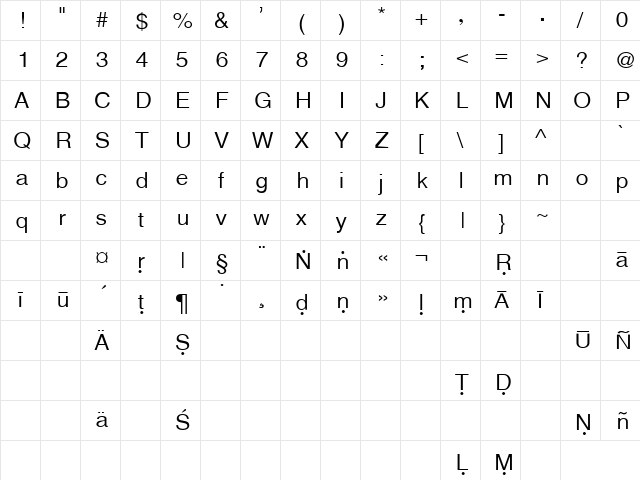
VriRomanPali CN Normal
Design Context for VriRomanPali CN Typeface
VriRomanPali CN takes a measured approach to typography — its balanced proportions and neutral character make it a reliable workhorse for both digital and print work.